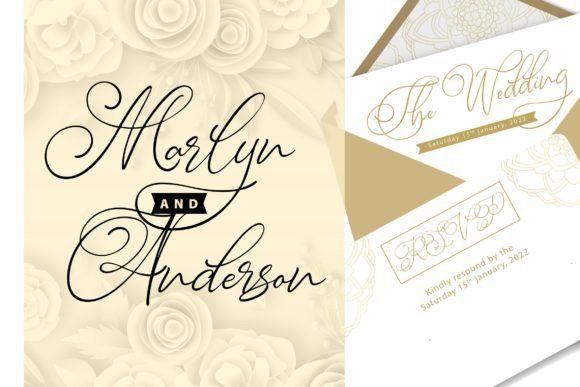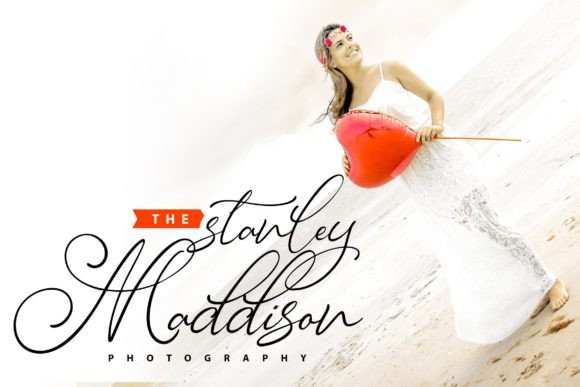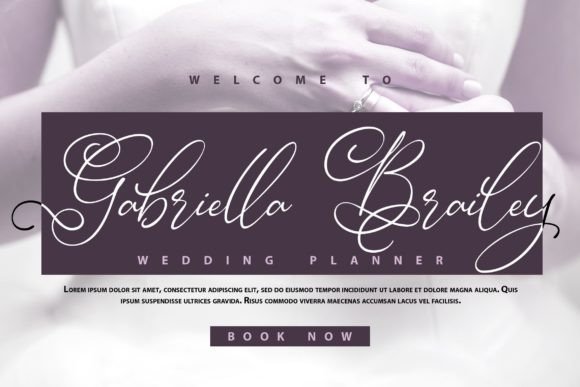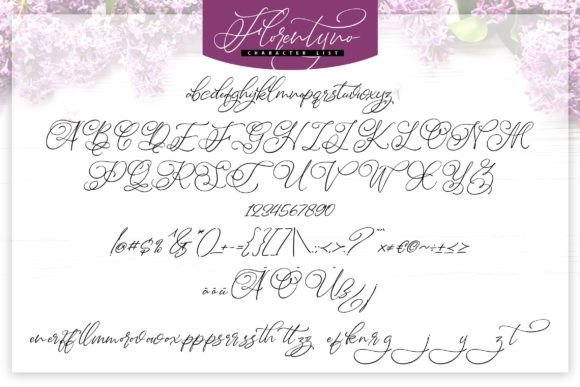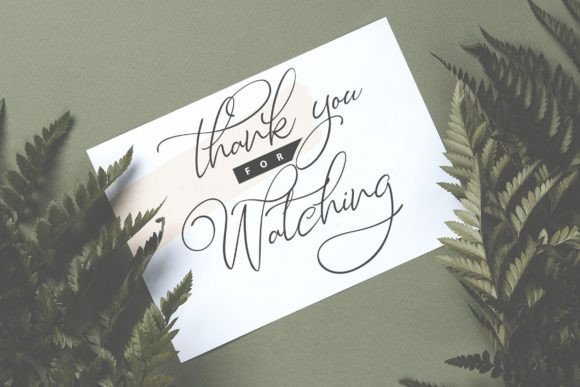
Florentyno Font
About Florentyno Font
“Florentyno” is a fresh and modern script calligraphy typeface that brings a unique flow and elegant personality to your design projects. Tailored for versatility, this font is well-suited for a range of design needs, including logo design, branding, covers, posters, and more. With its distinctive style, “Florentyno” adds a touch of sophistication to your creative endeavors.
The typeface’s modern script calligraphy lends a contemporary and stylish feel to your designs, making it suitable for projects where an elegant and flowing aesthetic is desired. Whether you’re creating a logo for a luxury brand, designing a book cover, or crafting promotional posters, “Florentyno” delivers a refined and distinctive look.
“Florentyno” is crafted with its own unique flow, giving it a sense of individuality and character. This makes it a standout choice for projects that require a personalized touch, allowing your designs to stand out with elegance and grace.
The PUA encoding feature of “Florentyno” enhances the user experience by providing easy access to a wide range of glyphs and ligatures. This allows for seamless customization, giving you the freedom to experiment with different letter combinations and design elements, enhancing the overall uniqueness of your creations.
In summary, “Florentyno” is more than just a font; it’s a design tool that brings modern script calligraphy with a unique flow to your projects. Whether you’re working on branding, covers, posters, or any other design project that demands an elegant touch, “Florentyno” ensures your creations exude sophistication and individuality, leaving a lasting impression on your audience.